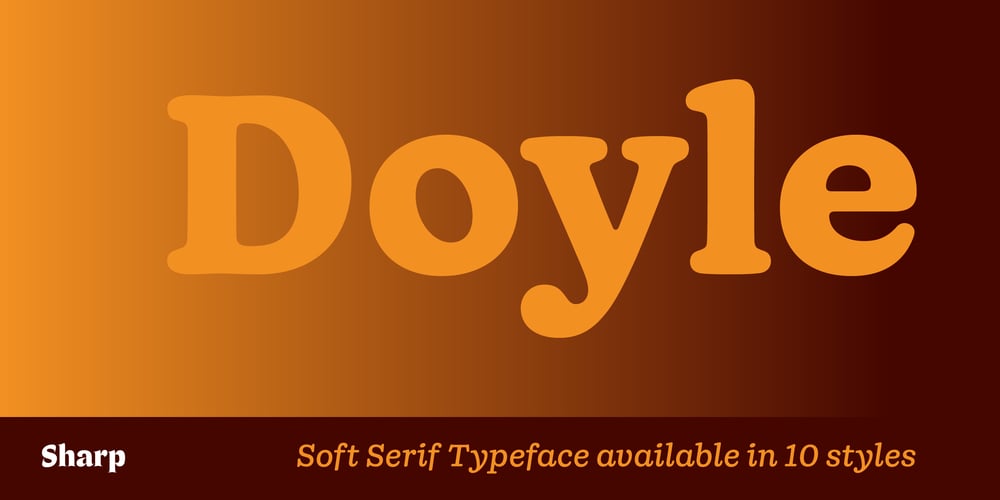
Doyle Font Family was designed by Lucas Sharp, Roxane Gataud, Connor Davenport, Kia Tasbihgou, Marc Rouault, Calvin Kwok, My-Lan Thuong, Roxane Thuong, Wei Huang and published by Monotype. Doyle contains 10 styles and family package options. Doyle is a period piece, a loving synthesis of 2 iconic styles that became the visual backdrop of a generation. The darkest master is Lucas Sharp’s ode to Cooper Black drawn from memory, and on the light end of the spectrum the chubby organic forms suck it in and take on a style reminiscent of ITC American Typewriter. While Doyle takes many cues from these 2 sources, their reinterpretation and amalgamation form something new entirely: a coherent family that is both structured and loose, with an inky wetness that is positively brimming with life. Doyle was designed by Lucas Sharp and Marc Rouault in 2019.